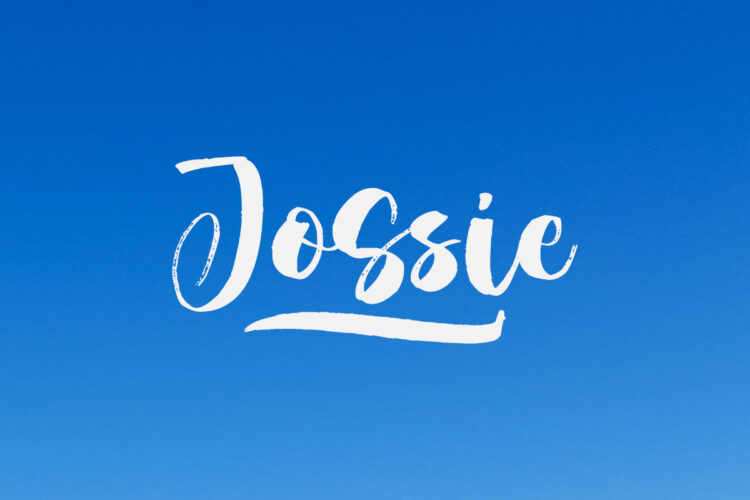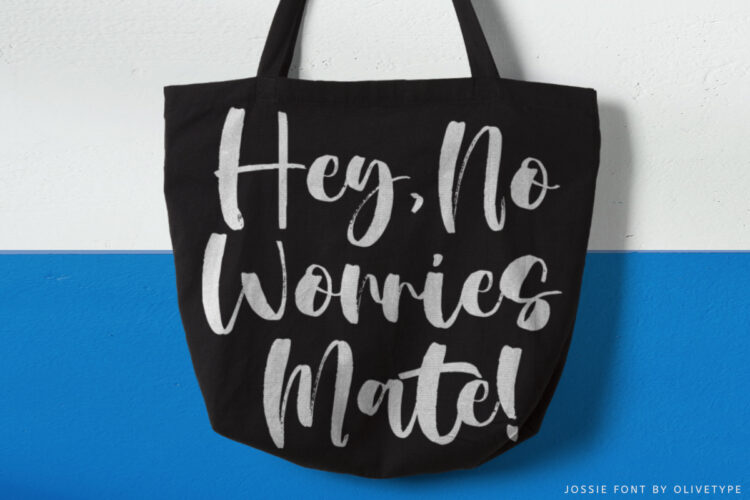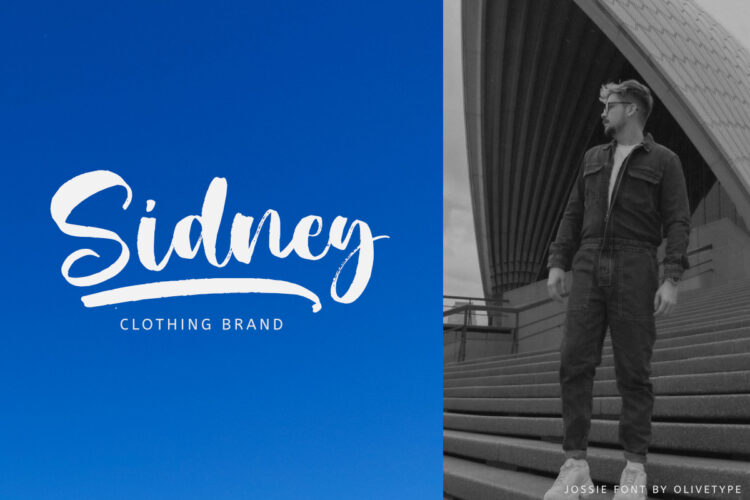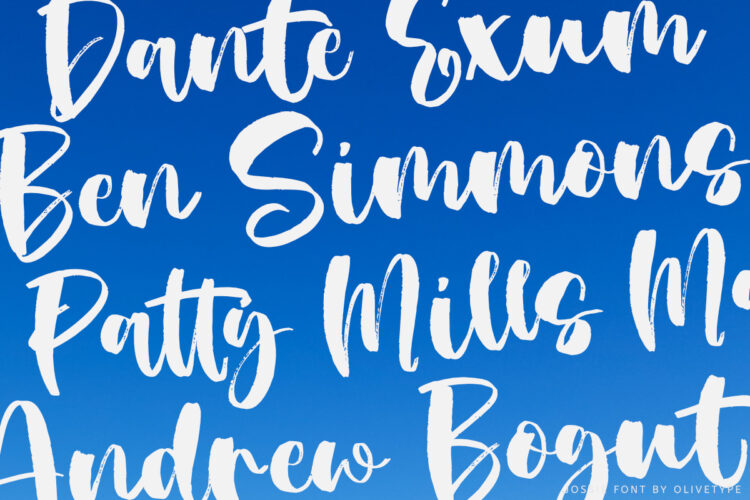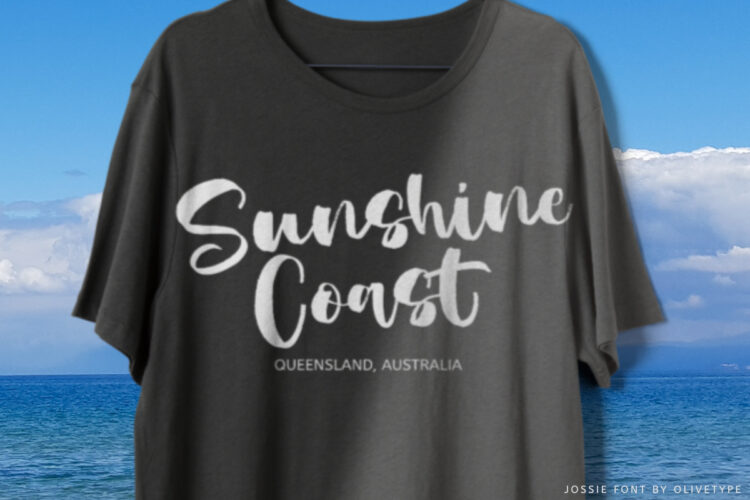
Jossie is a cool handwritten script font. The texture is a little bit rough, suitable for all of your logos, branding, social media, and crafty DIY projects.
- Basic Latin A-Z & a-z,
- Ligatures and swashes